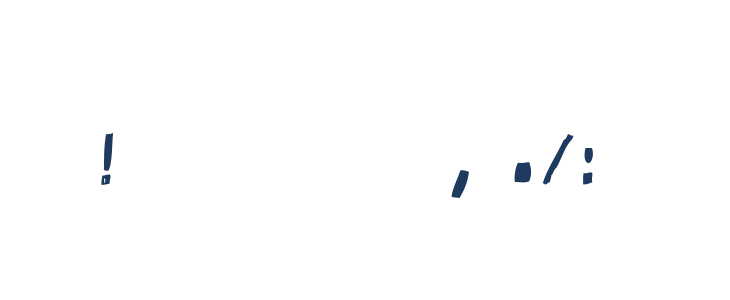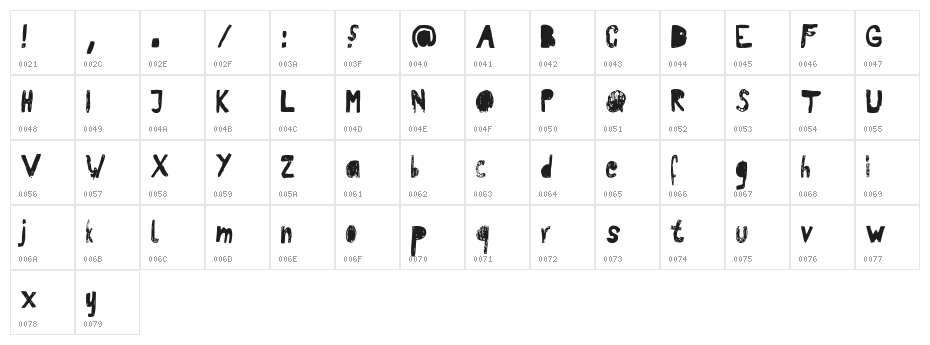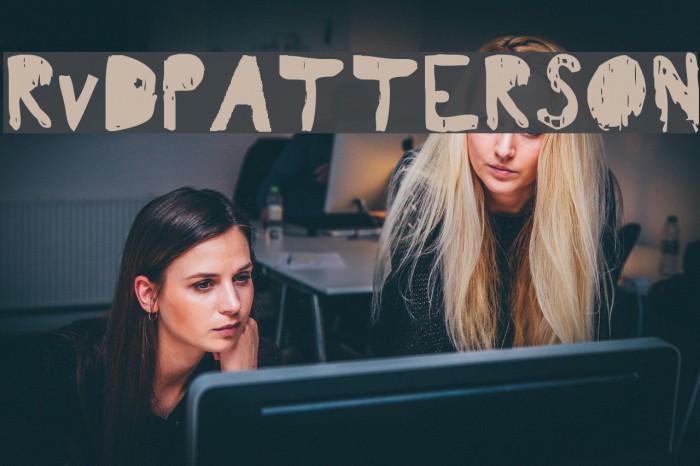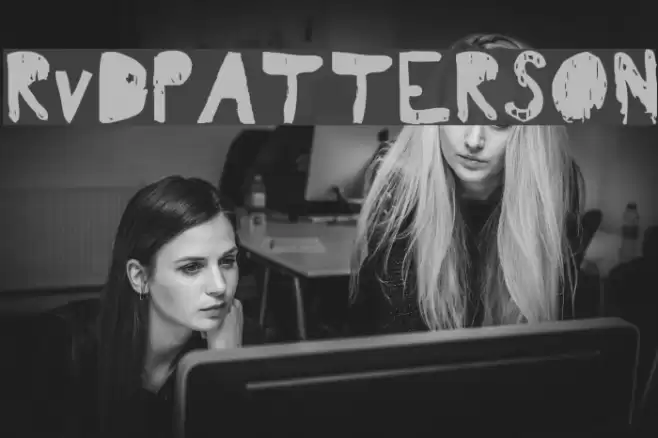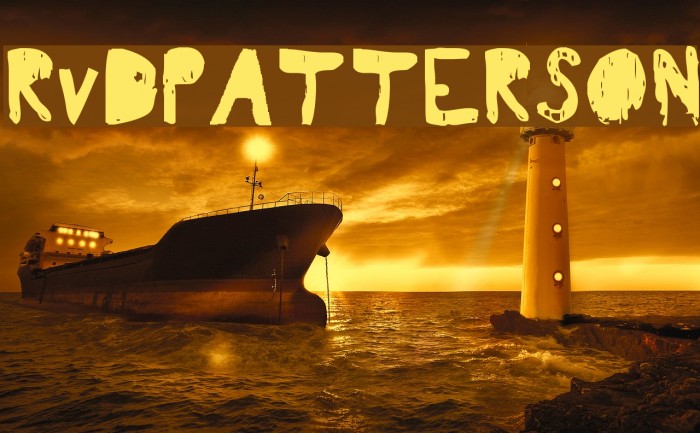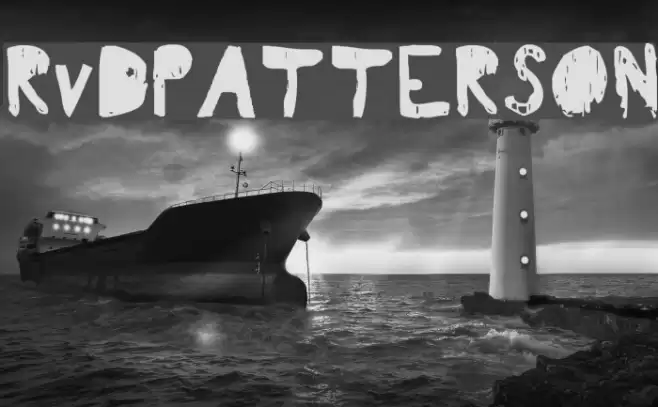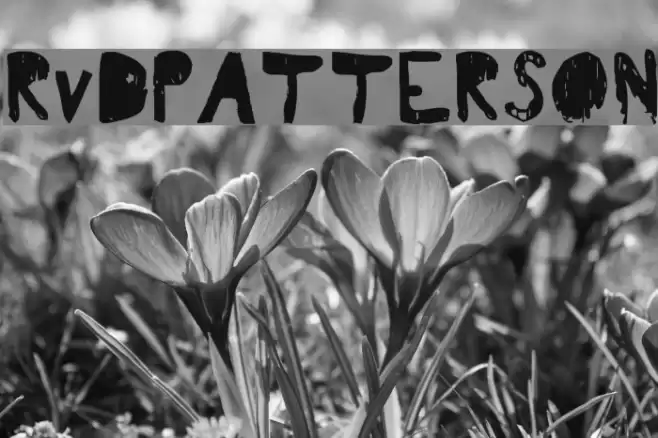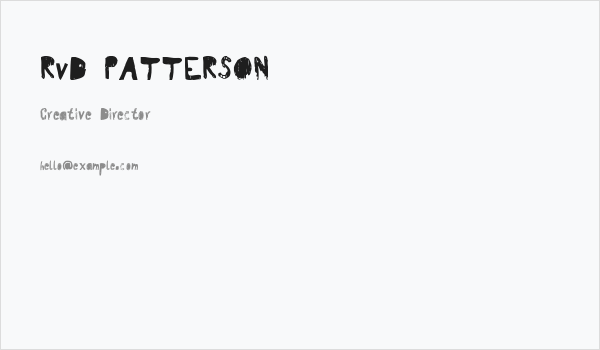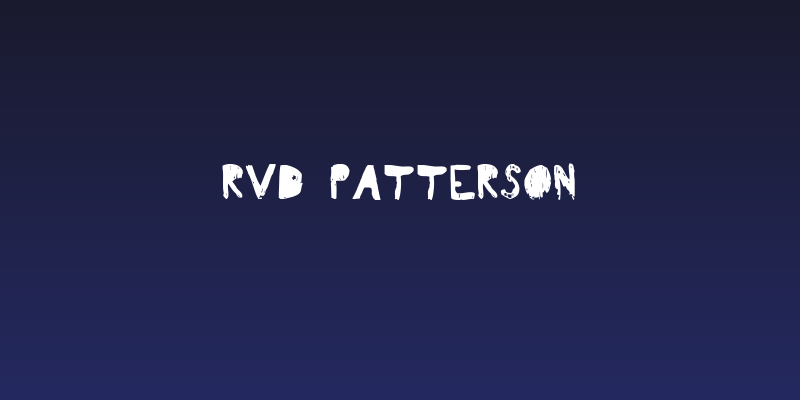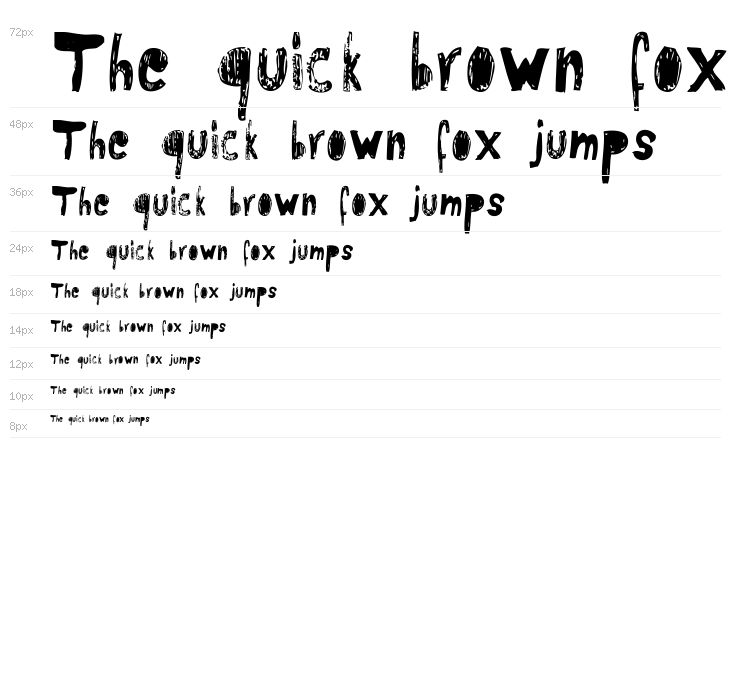
RvD_PATTERSON Font
RvD_PATTERSON Description
This font features a bold and distressed style, with each character exhibiting a unique, rough texture that gives it a grunge or urban feel. The uppercase letters are particularly striking, with irregular edges and varying thicknesses that create a dynamic and energetic appearance. The lowercase letters maintain this rugged aesthetic, though they are slightly more uniform in shape. The numbers and special characters continue the theme, adding to the font's overall edgy and unconventional look. This font is ideal for projects that require a bold statement or an artistic touch.
| Overall Style | Grunge, Urban, Edgy |
| Proposed Projects | Album covers, streetwear branding, graffiti art, posters, and edgy graphic design projects. |